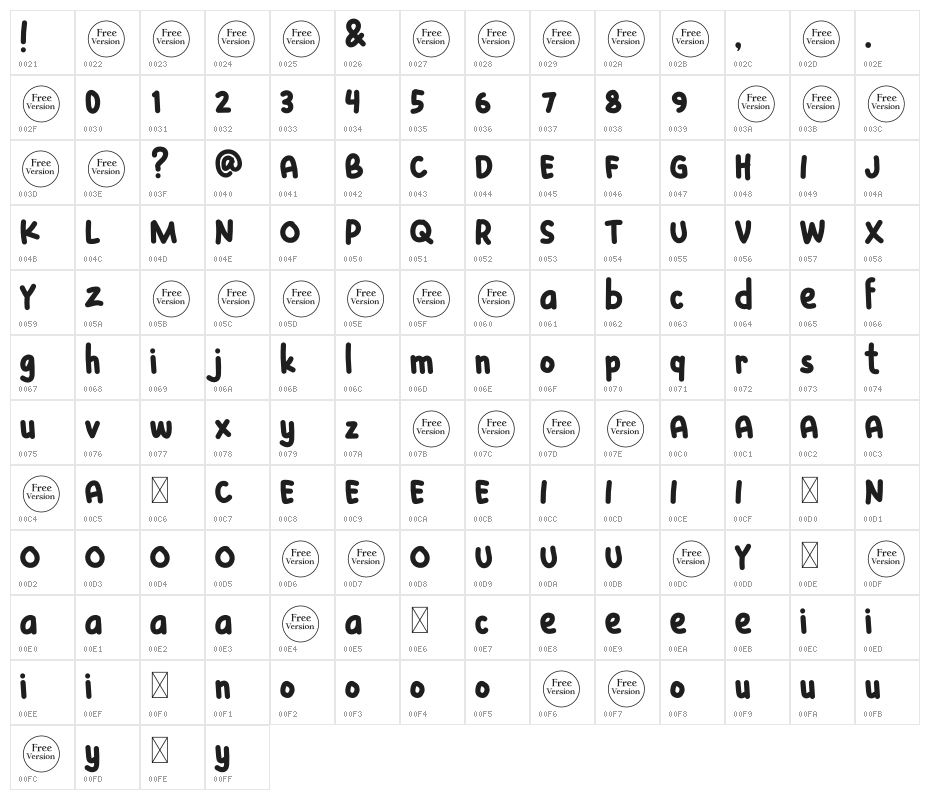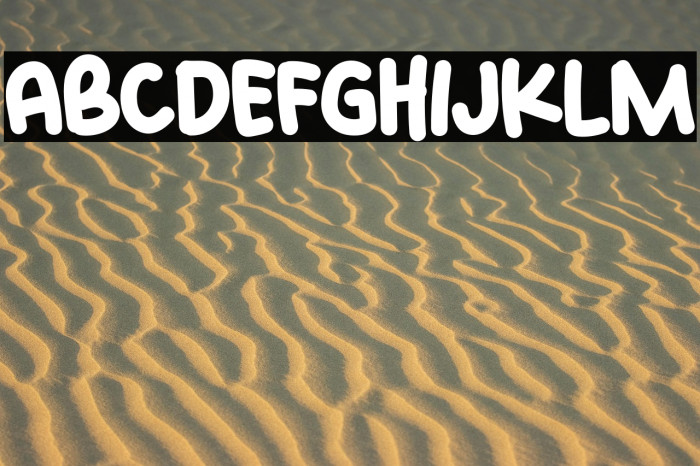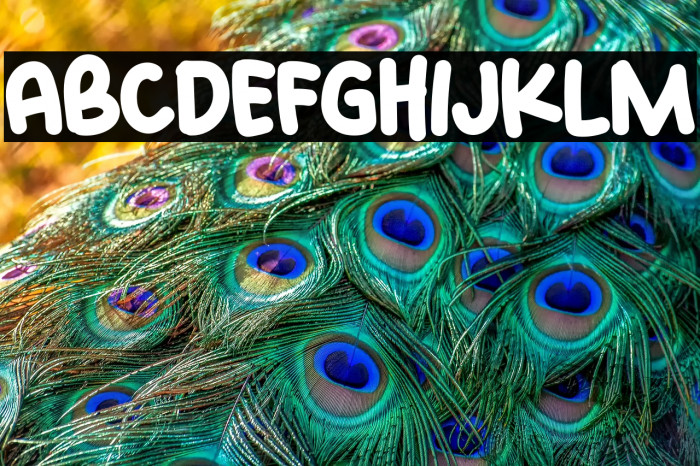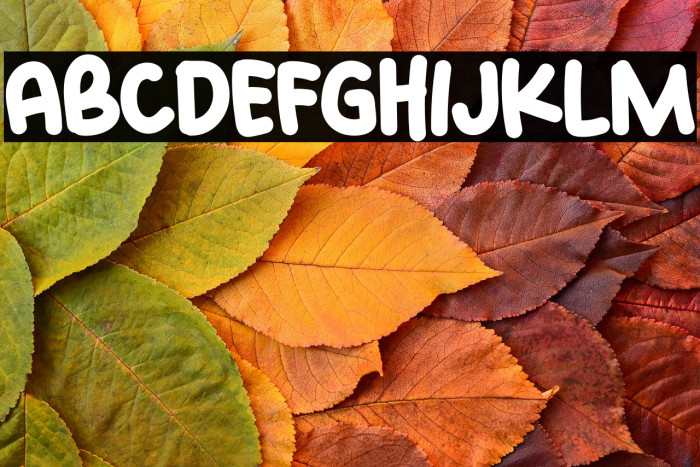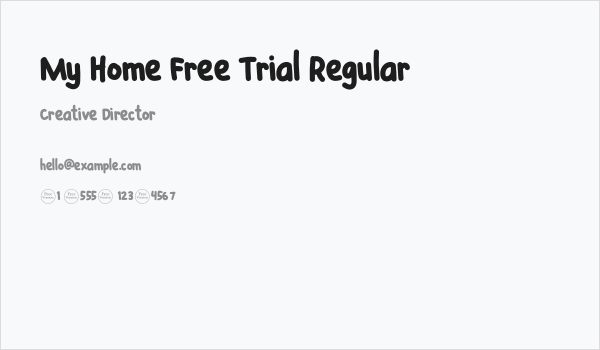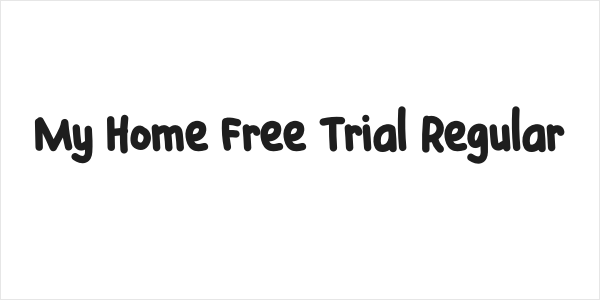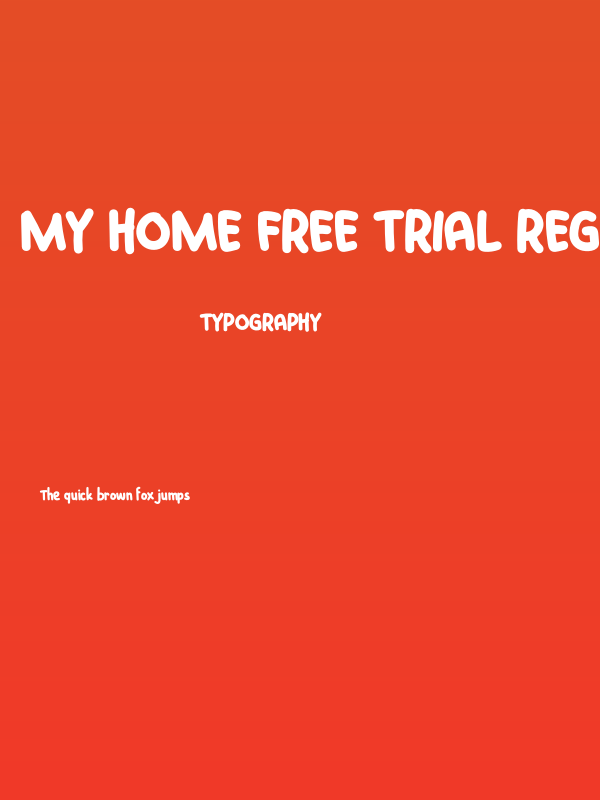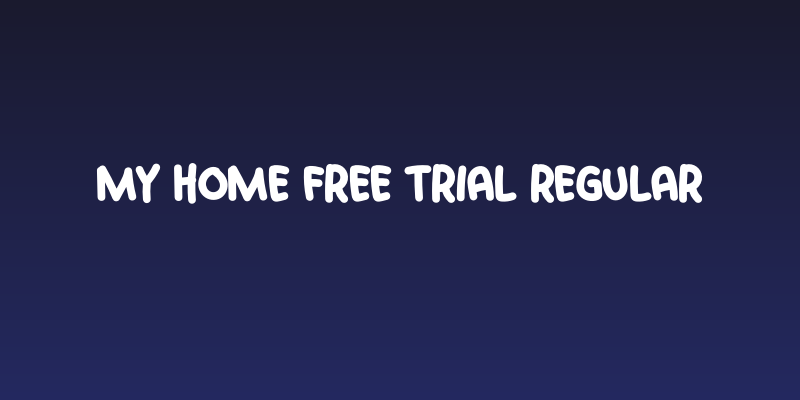
My Home Free Trial Regular Font
My Home Free Trial Regular Description
This playful and bold font features rounded edges and a hand-drawn aesthetic, giving it a friendly and approachable feel. The characters are thick and slightly irregular, adding to its whimsical charm. The uppercase and lowercase letters maintain a consistent style, with a slight variation in size and shape that enhances its casual appearance. The numerals are equally bold and rounded, ensuring readability while maintaining the font's overall playful tone. Special characters like the ampersand and exclamation mark are designed with the same thick strokes, seamlessly integrating with the rest of the character set.
| Proposed Projects | Ideal for children's books, playful branding, casual invitations, and fun social media graphics. |